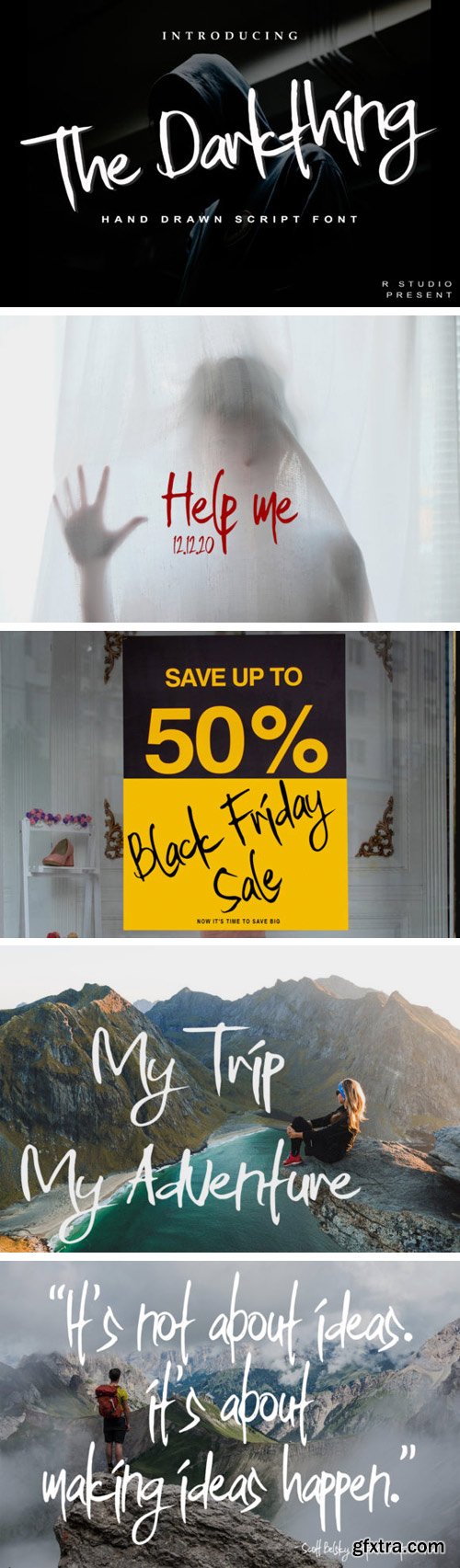
黑暗之物字体
The Darkthing Font
The Darkthing is a hand-drawn brush font. It has a natural feel and is perfect for adding a personal touch to your designs. It’s perfect for logos, clothing designs, posters, magazines, quotes and every other design which needs a natural touch.